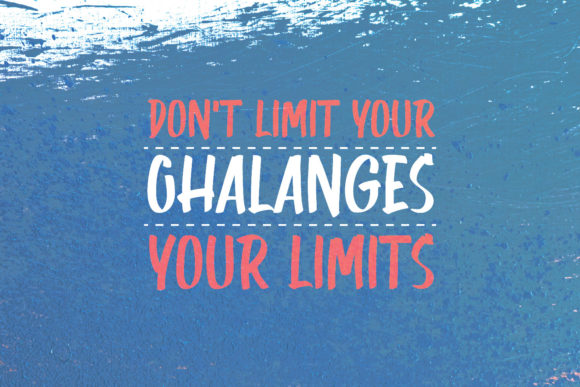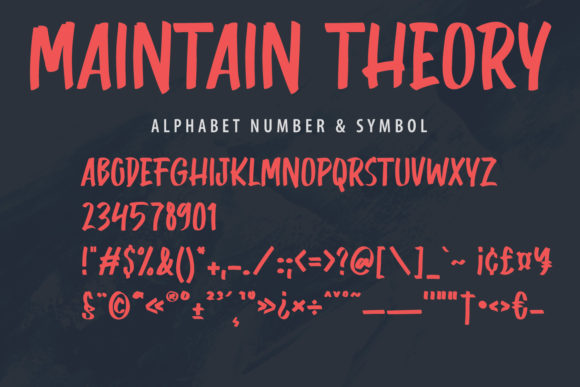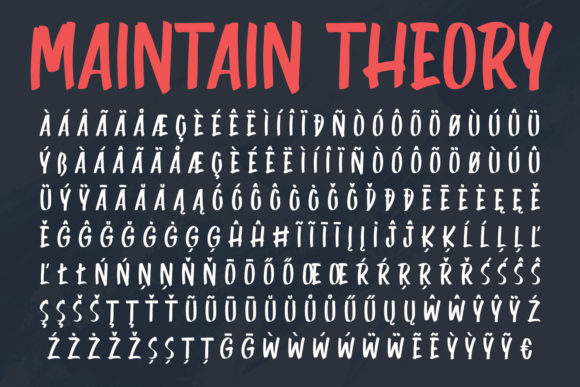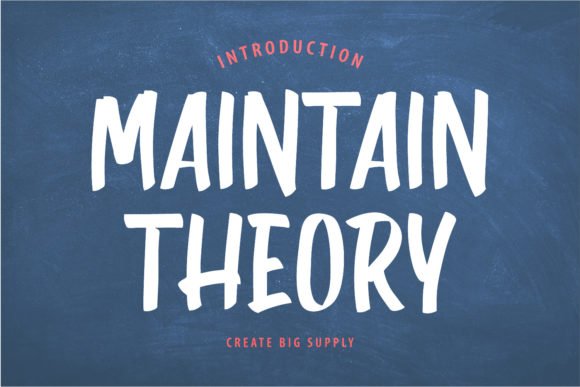
Introduction to Maintain Theory Font
Maintain Theory is a cool, brushed display font.
Whatever the topic, this font will be a wonderful asset to your font library, as it has the potential to enhance any creation .
Key Features of Maintain Theory Font